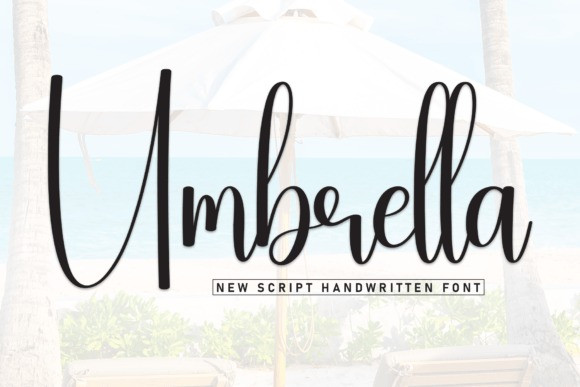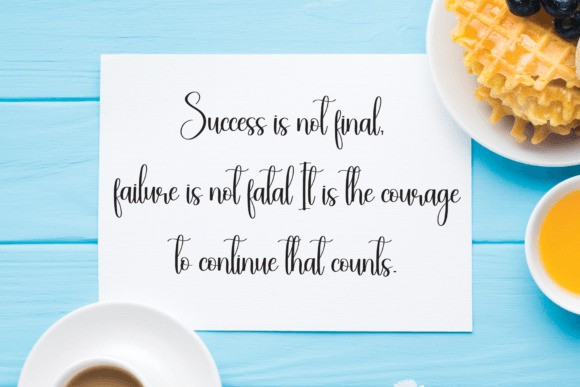
Umbrella Handwriting Font
Umbrella Handwriting Font is a sweet and friendly handwritten font. Its natural and unique style makes it incredibly fitting to a large pool of designs. The only limit is your imagination!